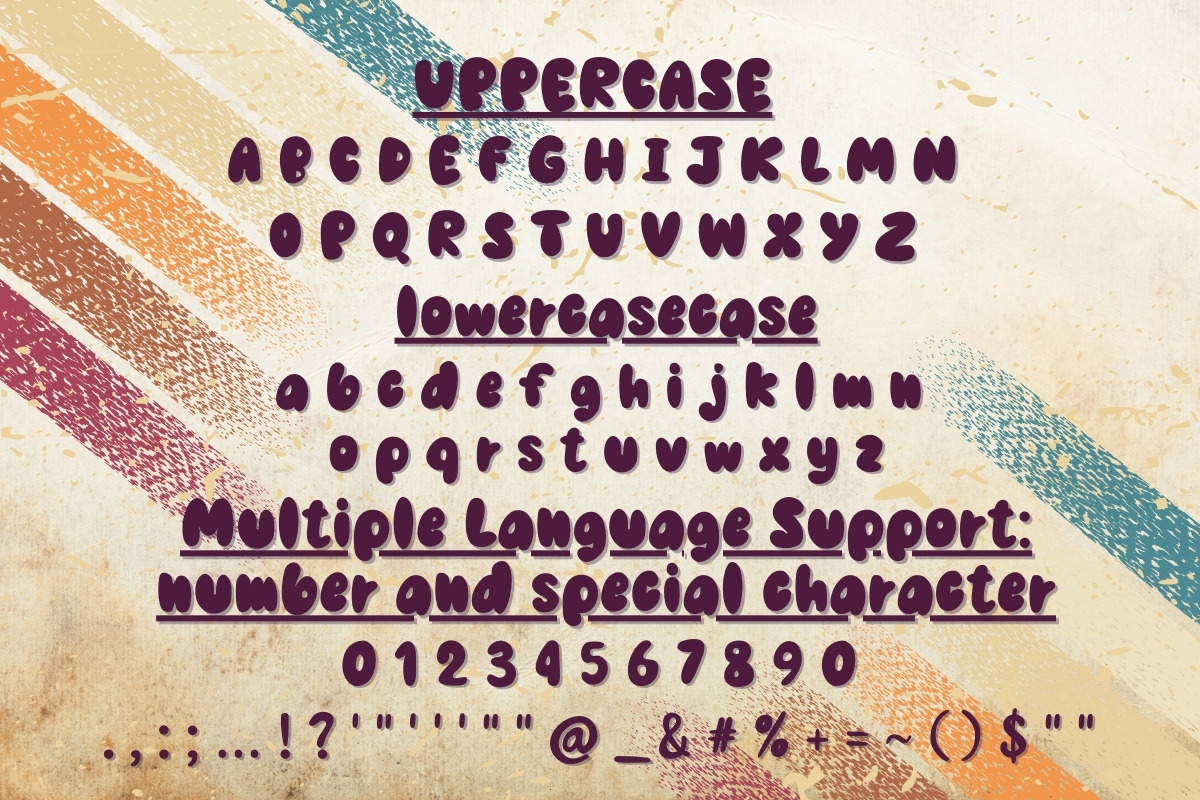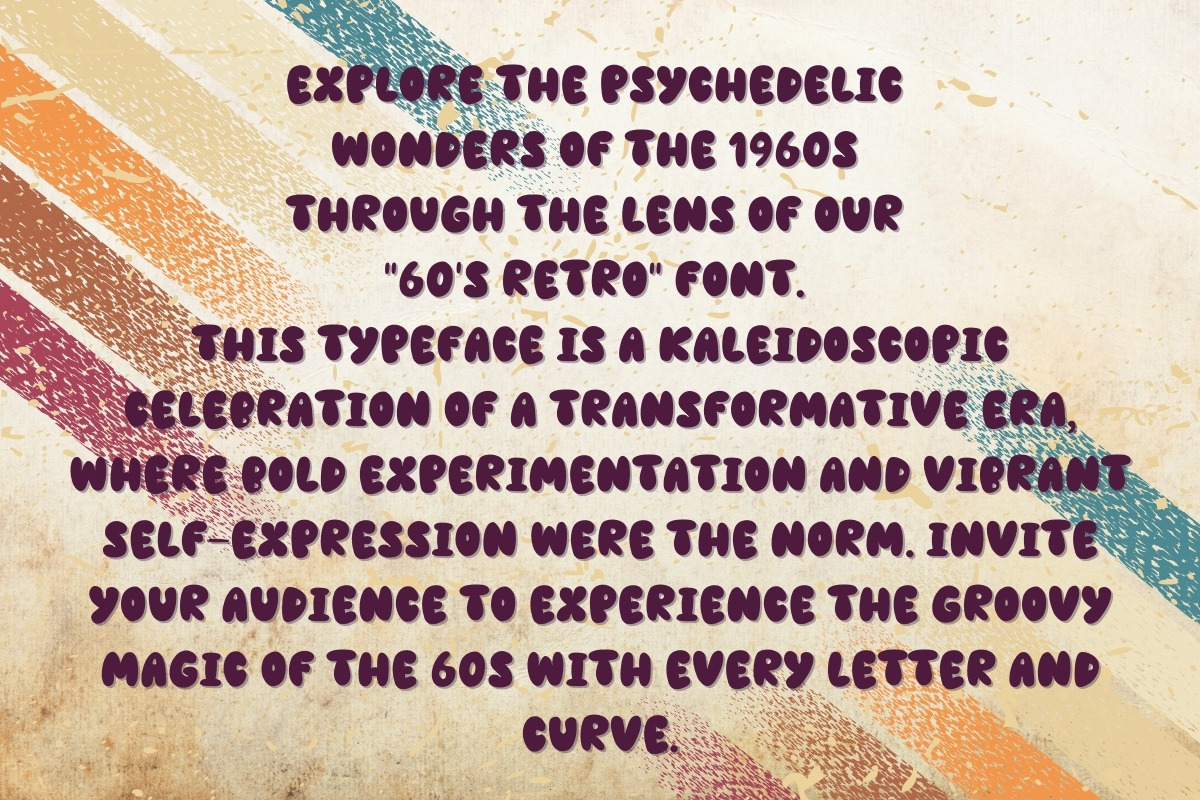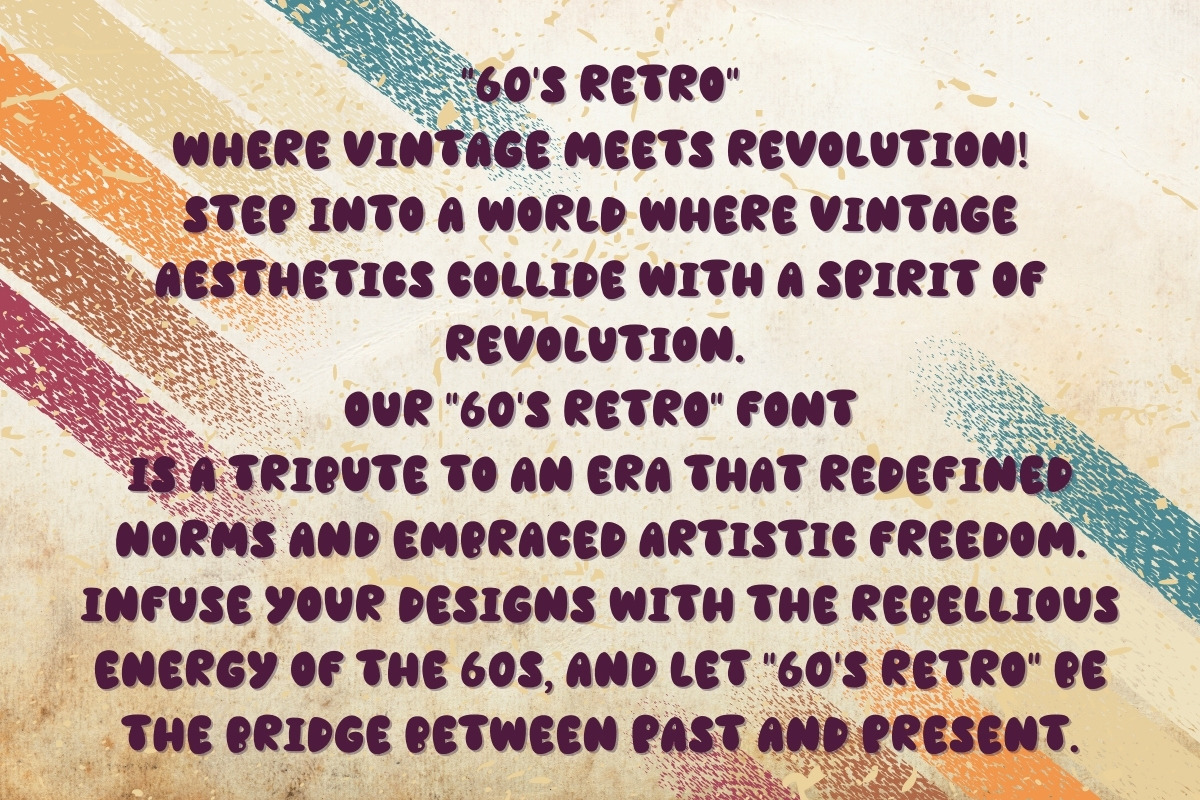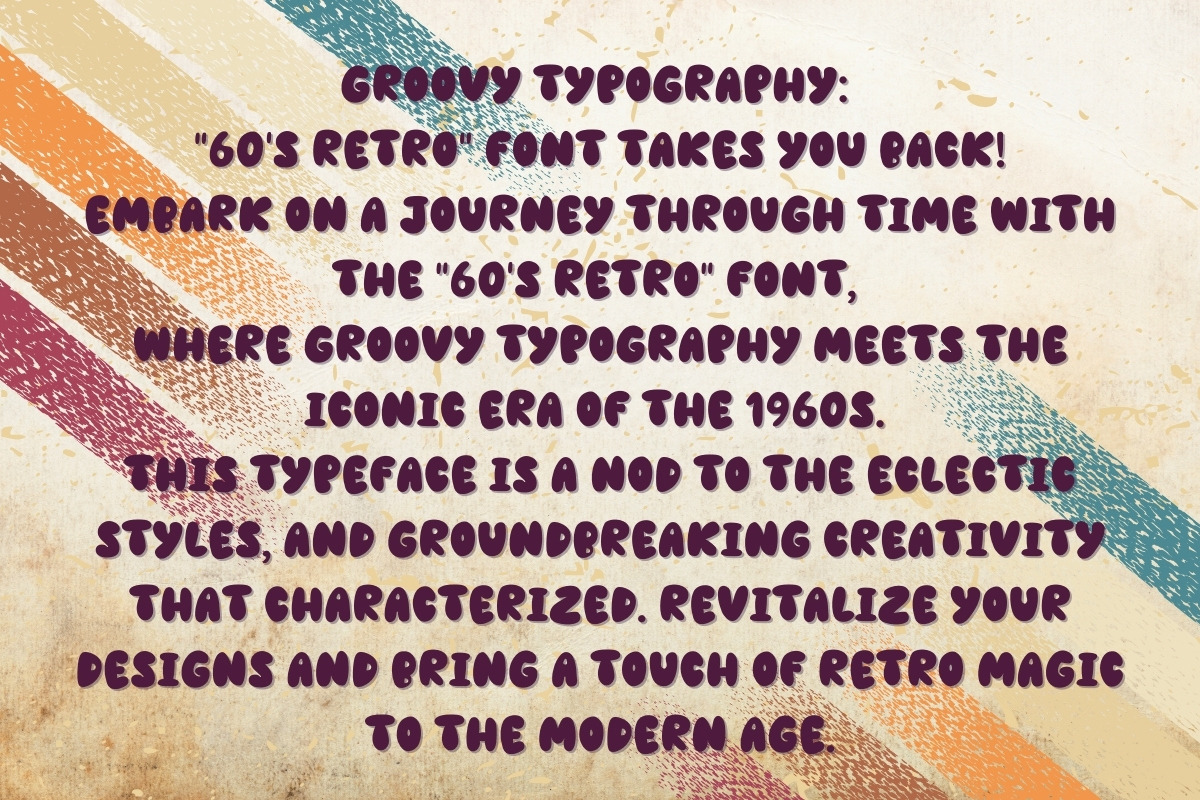
60’s Retro - Handwritting
Immerse yourself in the vibrant spirit of the 1960s with our "60's Retro" font. This typeface is a visual journey back in time, capturing the essence of an era marked by revolution, free love, and artistic exploration. Let your designs groove to the rhythm of the past with the authentic charm of "60's Retro."